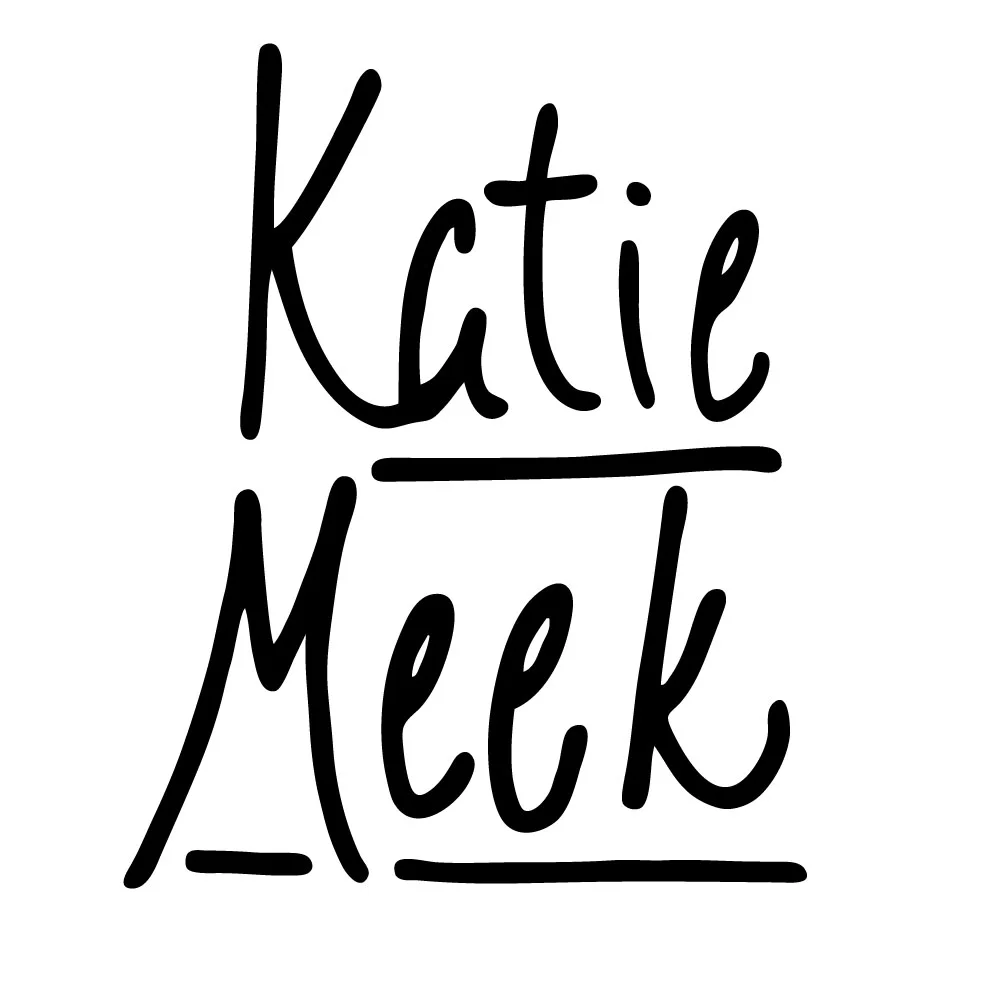
Member Feature: Katie Meek
Heyy it's another member feature! This time we're excited to introduce you to Katie Meek, one of our early members, and who since first coming to SSLetters has launched her own stationary business that incorporates tons of hand lettering! We all have a few of her cards that we've either sent or received, and our places are marked in books with her adorable bookmarks.
We also love Katie's work at Catylator Makerspace where she uses the laser cutter to make custom hand lettered signs! Her signs have been used as photo props, as decorations in client's homes, and even as Christmas tree ornaments! Last year we collaborated with her to host workshops at Catylator to teach people how to turn their own hand lettering into laser cut signs. Get to know Katie, her process, and her work in this month's member feature!
How did you discover hand lettering?
I first found hand lettering as a graphic design student in college, but it fell be the wayside as I continued my studies. A couple years later, I fell in love with lettering again as I started using it as a creative outlet from my job as a project manager.
How long have you been hand lettering?
4 years
Describe your hand lettering style.
My style is very graphic and whimsical. I also try to use bold, bright colors in my work.
What are your favorite tools to hand letter with and ways to display hand lettering?
I use a bit of everything. The best tools are the ones you have on hand, right? Lately, I really like using Microns and a Pilot Bravo! for all of my inking.
What inspires your lettering?
I‘m really inspired by everything around me—books, architecture, casual conversations—but I‘m most often inspired by the beauty in nature and the incredible people I have the privilege to know.
Do you have any hand lettering projects that you're working on? Or any projects you have done in the past to share?
Last year, I released my first set of wedding suites which feature my hand drawn illustrations, and I’m thrilled with how they turned out. Now, I am working on creating hand drawn vector graphics to sell as a resource to other designers.
What do you do outside of hand lettering? Any special interests?
I love reading and have a special love to graphic novels and children’s books.
What is your favorite letter, number or character to letter?
I love curves so any time I get to do “G,” “S,” “3,” or “5” it’s fantastic.
What is your most challenging letter, number or character to letter?
”R”, “F”, and “&”